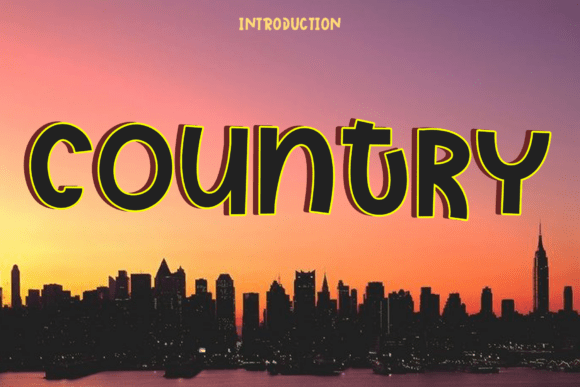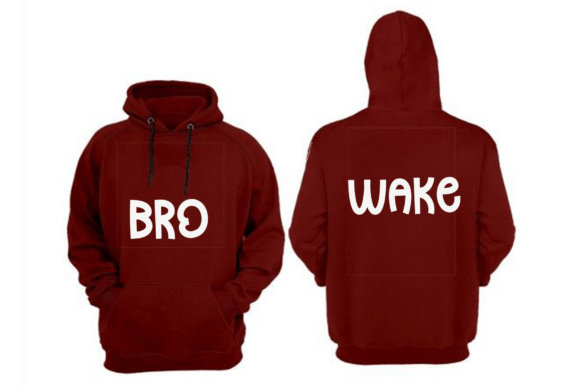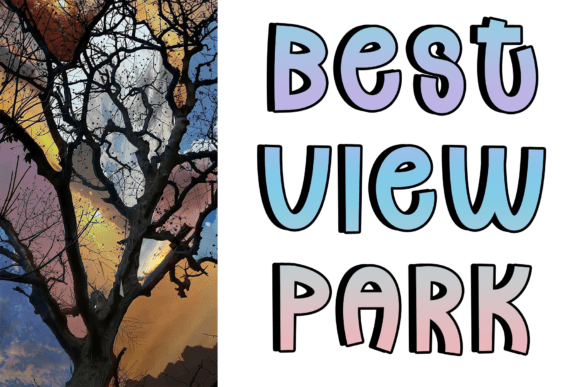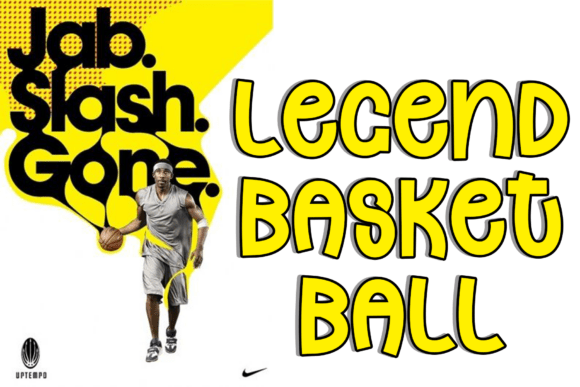
Country Font
About the Country Font
The Country Font is here to transform your projects with its distinctive character and style. Country is a casual and creative font that exudes warmth and friendliness. Its round, playful strokes create a relaxed and approachable feel, perfect for personal projects, invitations, and social media graphics. The font’s charming, hand-drawn aesthetic adds a fun and unique touch to any design.
Country Font thrives in applications requiring a friendly and approachable feel. Ideal uses include logos for small businesses with a folksy or handcrafted aesthetic, invitations, greeting cards, short social media posts, and packaging for food or artisanal products. It’s less suitable for lengthy body text or UI elements where readability is paramount; its casual nature can hinder legibility in continuous prose.
Pairing Country Font with a clean sans-serif like Lato or Open Sans provides a strong contrast, balancing its playful energy with a sense of order. For a more sophisticated look, consider pairing it with a delicate serif like Merriweather, which complements its handcrafted feel without overwhelming it. Alternatively, a playful script font could enhance the whimsical nature of Country Font in specific applications.
Country Font projects a friendly, approachable, and slightly rustic personality. Its warmth makes it suitable for brands focused on community, craftsmanship, or natural products. Avoid using it for projects demanding a high level of professionalism or formality.